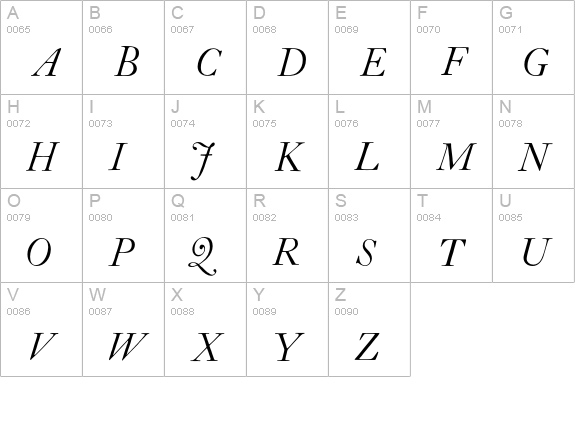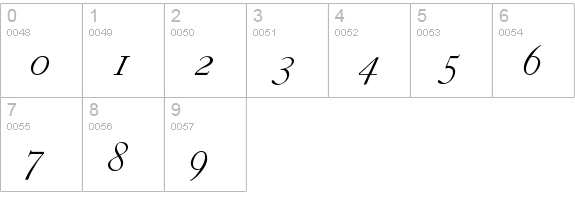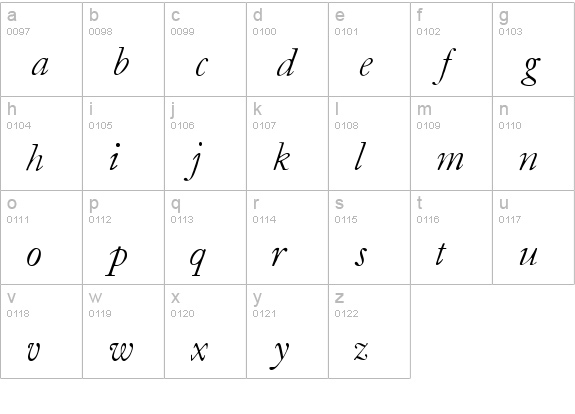
CaslonH-Italic Font Details
CaslonH-Italic is a distinctive, italic variant in the CaslonH typeface family \xE2\x80\x94 well suited to design and typography projects.
CaslonH-Italic is a sophisticated and elegant font designed for those seeking a touch of classic beauty in their typography. With its delicate curves and slanted design, this italic typeface exudes a sense of refinement and grace. Its timeless appeal makes it a versatile choice for a wide range of design projects, from wedding invitations to book covers. The CaslonH-Italic font is perfect for adding a touch of sophistication to your designs, whether you're working on a branding project or crafting a stylish editorial layout. Its graceful letterforms and flowing strokes lend a sense of elegance and charm to any text. This font is ideal for creating a sense of old-world charm and sophistication in your designs. Best of all, CaslonH-Italic is available for free download at FontsMarket.com. This means you can easily access this beautiful font and enhance your projects with its timeless appeal. Whether you're a graphic designer, a web developer, or a DIY enthusiast, CaslonH-Italic is sure to add a touch of elegance to your work. Download it today and elevate your designs with this classic and versatile typeface.